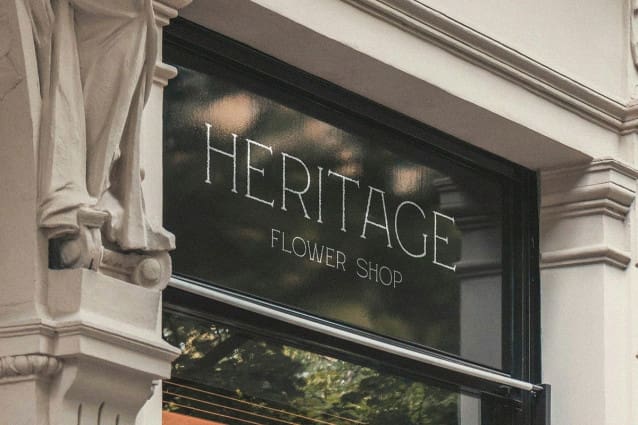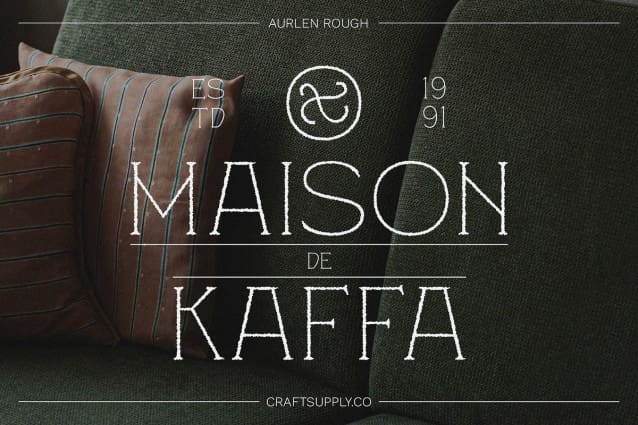
Aurlen Rough Font
Aurlen Rough Font is a modern serif font that combines clean, minimalist design with a unique rough texture. The font features elegant curves and precise lines, creating a sophisticated and contemporary look ideal for high-end branding and editorial layouts.
Sophisticated and Textured Experience the blend of refinement and ruggedness with Aurlen Rough. Its clean lines and stylish curves exude elegance, while the rough texture adds a distinctive, textured feel that sets it apart. This combination creates a visually intriguing and memorable font, perfect for projects that require both sophistication and character.
Versatile for Creative Applications Aurlen Rough is versatile enough for a range of creative projects. Whether you’re working on luxury branding, high-impact editorial layouts, or unique design concepts, its refined design and textured detail provide a perfect balance of elegance and visual interest.
Elevate Your Design Add a touch of sophistication and distinctiveness to your work with Aurlen Rough. Its modern serif style combined with a rough texture ensures a striking and refined appearance, making it an excellent choice for any project that demands both class and uniqueness.